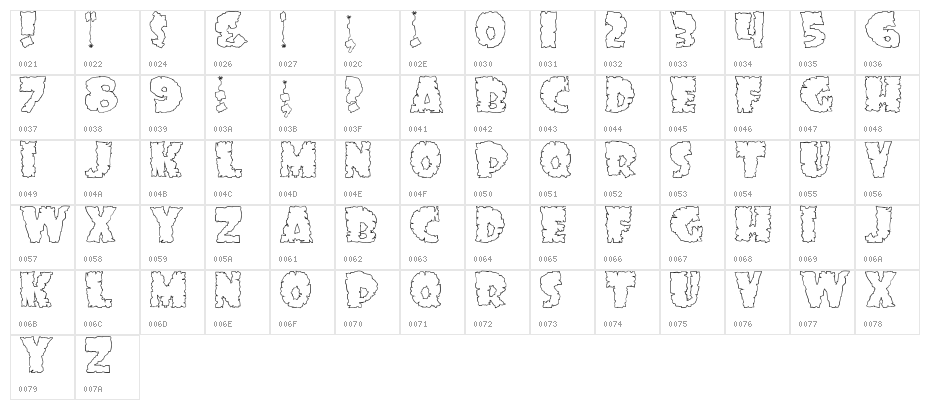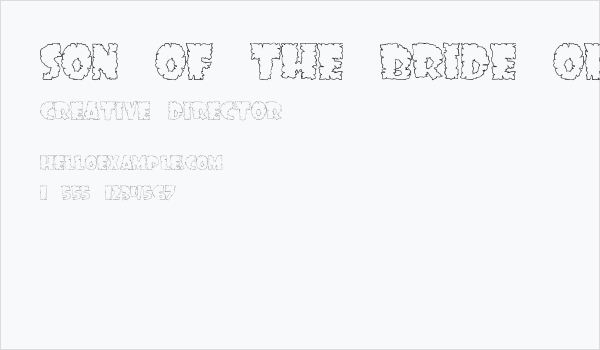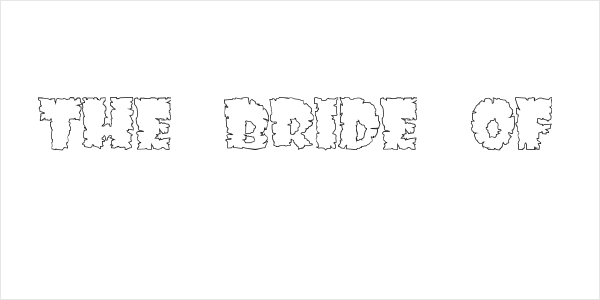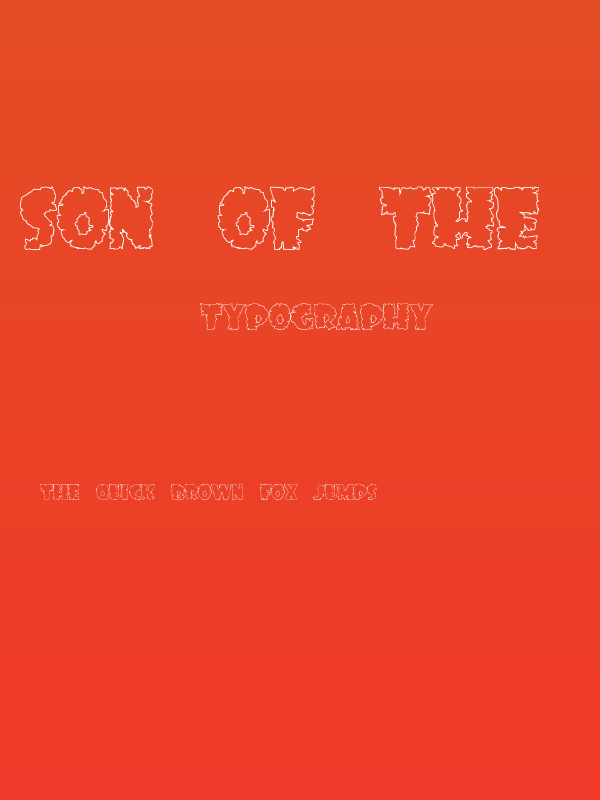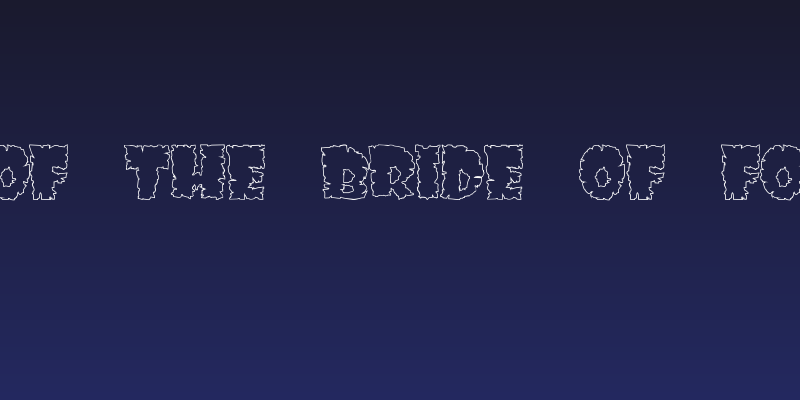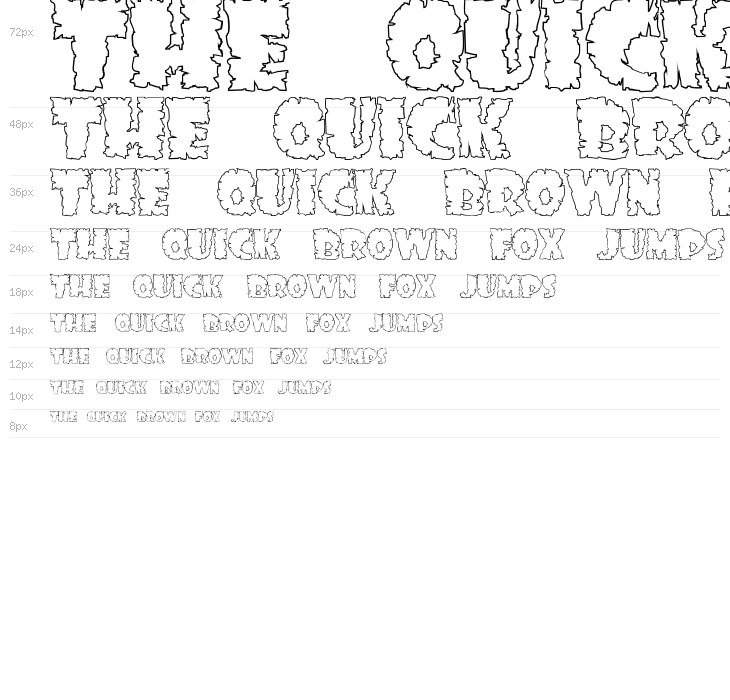
Son of the Bride of Foo JL Font
Son of the Bride of Foo JL Description
This font features a bold, jagged design that mimics the appearance of torn or shredded paper. Each character is outlined with irregular, rough edges, giving it a chaotic and energetic feel. The uppercase letters are particularly striking, with their bold presence and unique texture. The numbers and special characters maintain this rugged aesthetic, ensuring consistency across the entire typeface. This font is highly decorative and stands out due to its unconventional style, making it ideal for projects that require a dramatic and eye-catching look.
| Use Case | Headlines, Posters, Logos |
| Proposed Projects | Ideal for Halloween-themed designs, horror movie posters, edgy album covers, or any project needing a bold, dramatic typeface. |